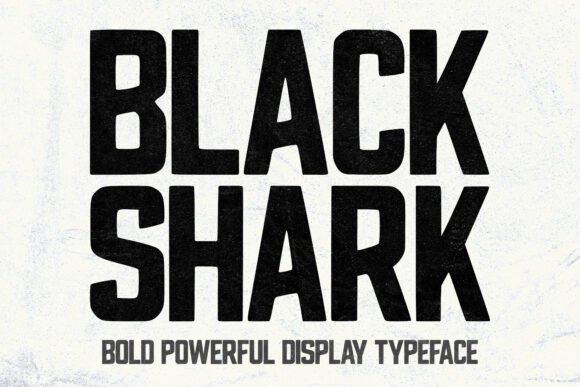
The Power of Black Shark Font: Unleashing Bold Typography in Your Designs
I’ll never forget the time I was working on a sports branding project, tasked with creating a logo that exuded energy, strength, and a hint of rebelliousness. As I scrolled through font after font, nothing seemed to capture the essence I was looking for – until I stumbled upon Black Shark. This bold, powerful display typeface has been a game-changer in my design toolkit, and I’m excited to share its awesomeness with you! 🚀
First Impressions: A Fearless, Masculine Font
Black Shark is built for impact. Its strong geometric structure, squared curves, and heavy presence make it perfect for sports branding, streetwear designs, gaming titles, logos, posters, and high-energy typography. The letterforms carry a modern industrial feel with tight spacing and sharp edges that command attention in any layout.
- ✨ Instant impact: Black Shark grabs attention and makes a statement in any design.
- ✅ Versatility: Works amazingly well for both digital and print projects.
- 💪 Masculine edge: Adds a bold, fearless vibe to any layout.
- 🎨 Customization options: Offers OpenType features, glyphs, and stylistic alternates for creative experimentation.
⚠️ While Black Shark is incredibly versatile, it may not be the best fit for:
- ⚠️ Body text: Due to its bold nature, it’s better suited for headlines and titles rather than lengthy paragraphs.
- 🤔 Legibility at small sizes: Be mindful of the font size, as it may lose legibility when scaled down.
The Story Behind Black Shark
Imagine a team of designers gathered around a table, brainstorming ideas for a font that would capture the essence of high-energy sports and gaming. They wanted to create a typeface that exuded confidence, strength, and a hint of rebelliousness. After months of refinement, Black Shark was born – a bold, powerful display font designed to make an impact.
Q: Is Black Shark suitable for body text?
A: No, Black Shark is best used for headlines and titles due to its bold nature. For body text, consider a more readable font.
Q: Does Black Shark support OpenType features?
A: Yes, Black Shark offers OpenType features, glyphs, and stylistic alternates for creative experimentation.